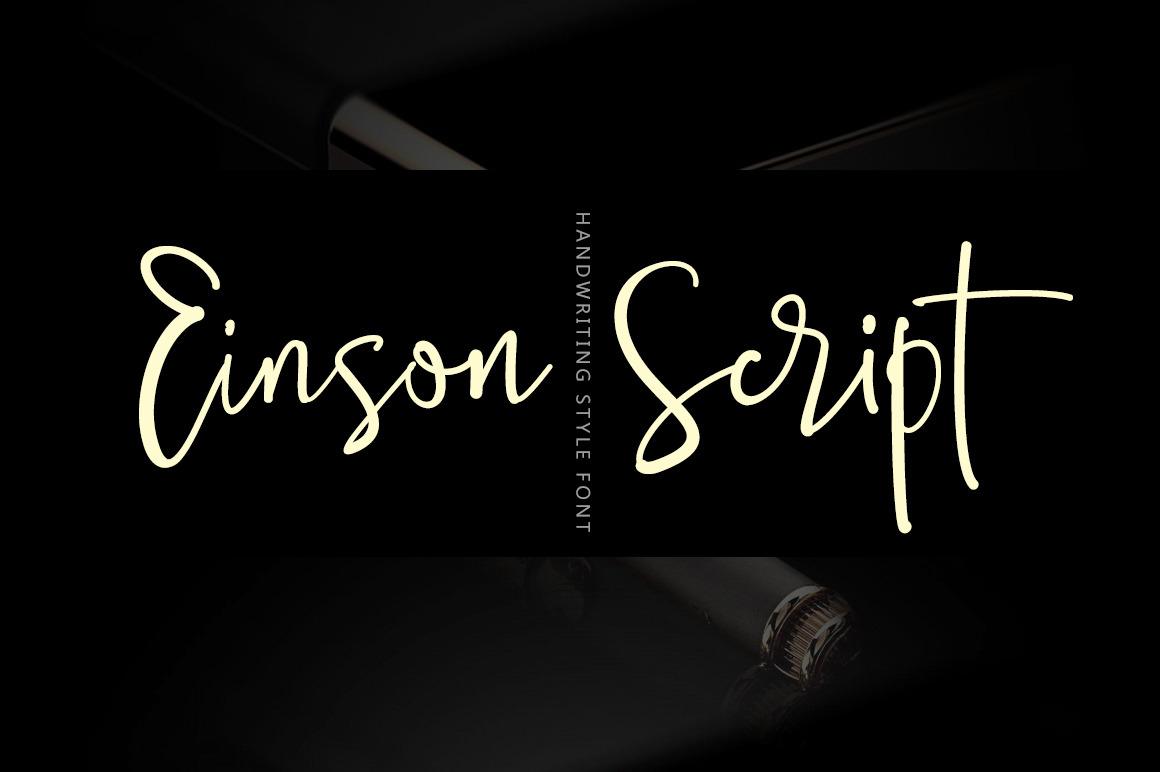
Einson Script Font
Einson Script Font is a set of handwritten font style, It is smooth, free, smart, can produce dozens of ligature glyph, The combination of a variety of changes.